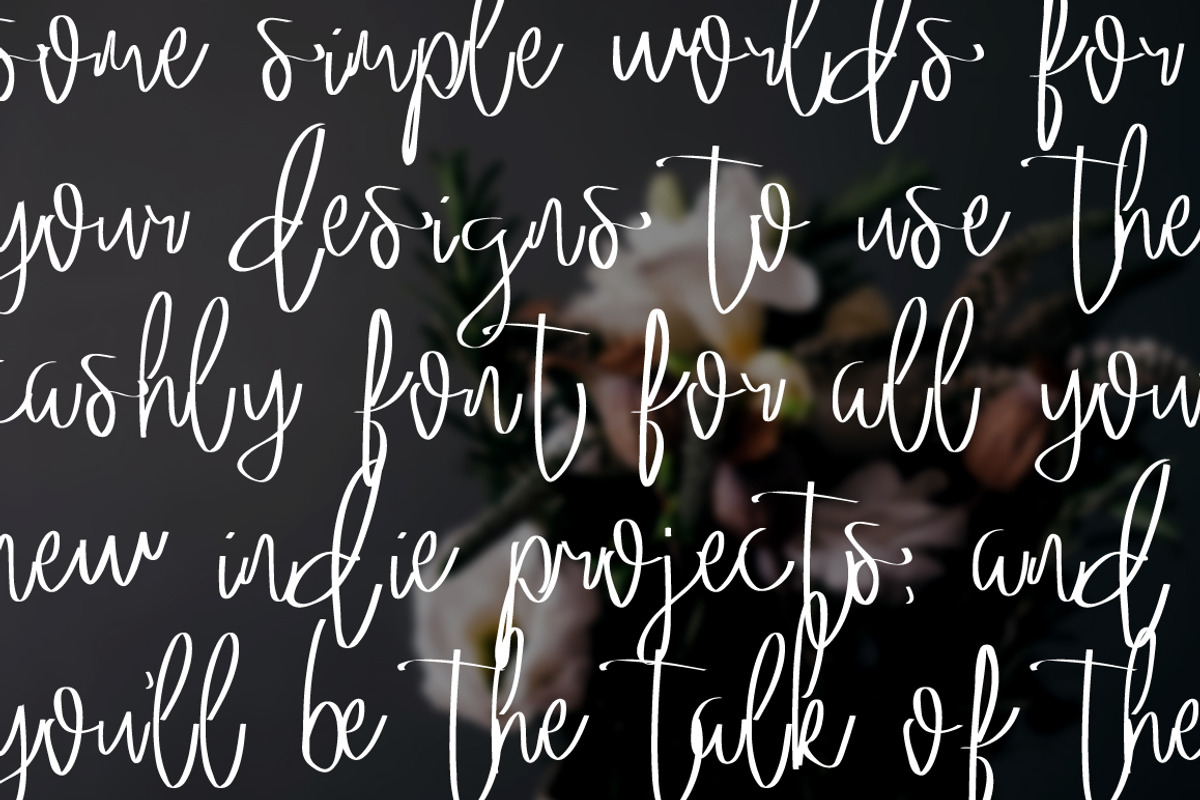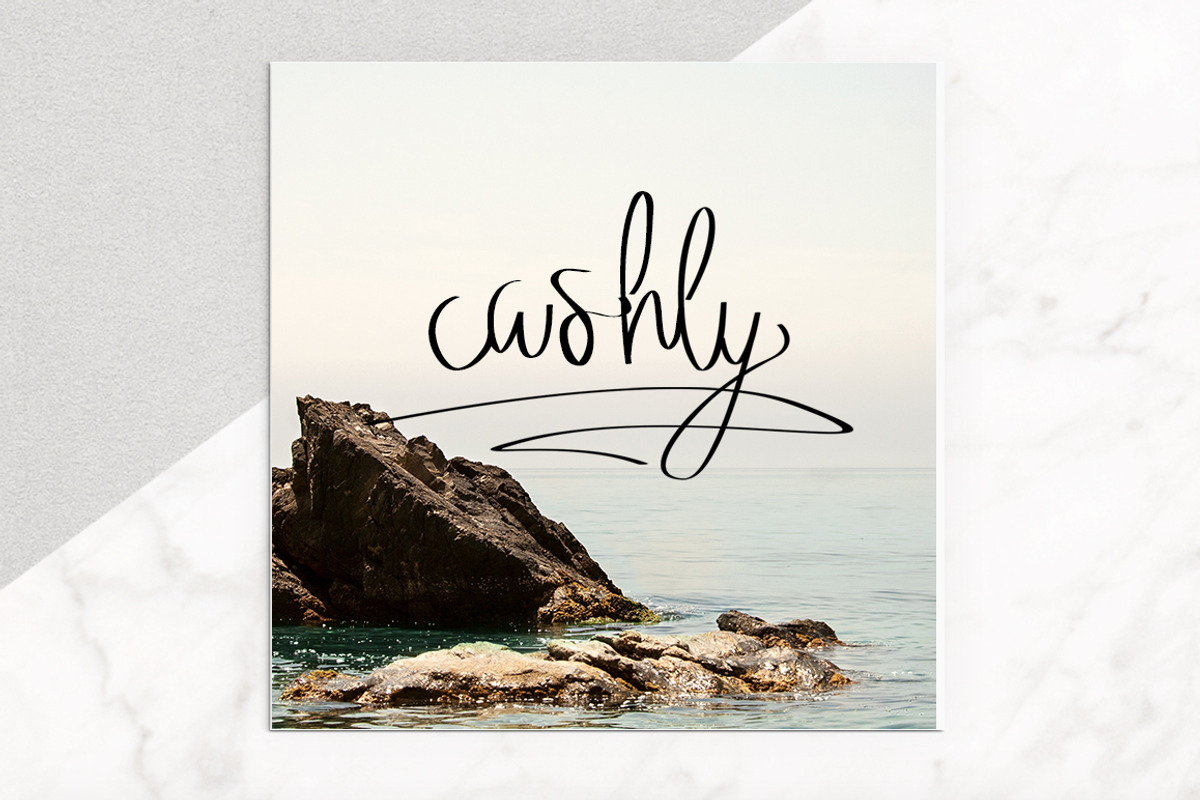
Hand Drawn Script Font Cashly
Hand Drawn Script Font Cashly by Aloha Philly is a font selected for branding, posters, packaging, typography.
Why Hand Drawn Script Font Cashly is worth a look
Hand Drawn Script Font Cashly by Aloha Philly fits naturally into Branding, posters, packaging, typography.